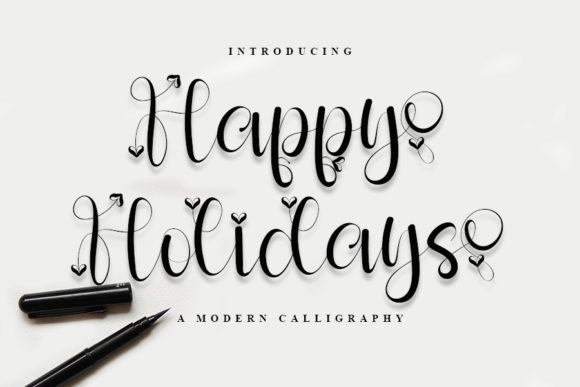
FreshTypeINK presents Happy Holidays, a font that will effortlessly add a touch of sophistication and joy to your creations. This mesmerizing script font captivates with its clean, delicate lines, creating an air of timeless elegance. Each character dances gracefully across your screen, exuding a captivating charm that is sure to leave a lasting impression.
Immerse yourself in the world of Happy Holidays and discover a font that is not merely a collection of letters but a gateway to endless possibilities. Picture your business cards blooming with an eye-catching allure, captivating potential clients with its understated beauty. Envision invitations adorned with Happy Holidays, where each RSVP becomes a testament to the thoughtful details you pour into every aspect of your life.
Happy Holidays is more than just a font; it is an investment in your creative expression. Its PUA encoding grants you access to a treasure trove of glyphs and swashes, empowering you to unleash your imagination and paint your words with unparalleled artistry. With Happy Holidays at your fingertips, the boundaries of your creativity will dissolve, and your designs will soar to new heights of refinement.
Don't settle for ordinary fonts that blend into the background. Embrace the exquisite allure of Happy Holidays, a font that will transform your creations into captivating works of art. Let its delicate strokes weave a tapestry of sophistication, leaving an indelible mark on the hearts of all who behold it.